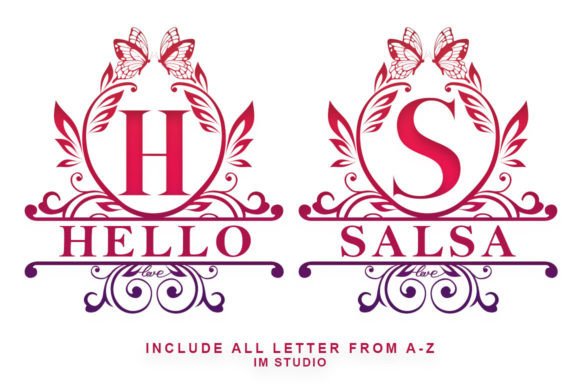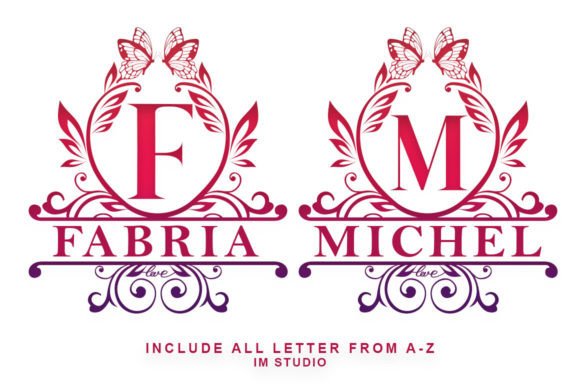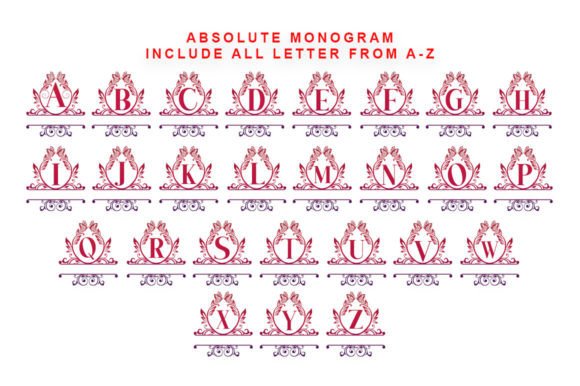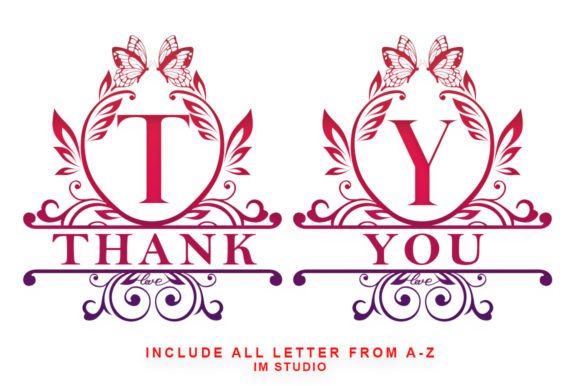
The Ultimate Guide to Absolute Monogram Font: Elevate Your Designs with Elegance
I’ll never forget the moment I stumbled upon the perfect font for a client’s wedding invitation project. I had been searching for what felt like an eternity, trying out font after font, but nothing seemed quite right. That was until I discovered Absolute Monogram Font. Its charming, decorative style instantly captured my heart, and I knew I had found the one. In this article, I’ll share my love for this beautiful font, its features, and how to make the most of it in your designs.
An Honest Review of Absolute Monogram Font
So, what makes Absolute Monogram Font so special? Let’s dive into the good stuff and a few quirks I’ve encountered.
- ✨ Authentic feel: The font has a unique, hand-crafted look that adds a touch of elegance to any design.
- ✅ Versatility: Perfect for invitations, stationery, social media posts, and greeting cards.
- 💫 OpenType features: Offers a range of glyphs and stylistic alternates to enhance your designs.
- 🌈 Beautiful monograms: The font shines when creating stunning monograms for initials or logos.
While Absolute Monogram Font is a gem, there are a few things to keep in mind:
- ⚠️ Limited use in body text: Due to its decorative nature, it’s best used for headings or titles rather than long blocks of text.
- 🤔 Some characters may require manual kerning: To achieve the perfect look, you might need to adjust the spacing between certain characters.
The Story Behind Absolute Monogram Font
The story behind Absolute Monogram Font is one of passion and dedication. While the actual designer is unknown, it’s clear that they poured their heart and soul into creating a font that would bring joy and elegance to designers and crafters alike. The font’s authentic feel and versatility have made it a favorite among creatives, and its OpenType features have opened up a world of possibilities for customization and creativity.
Q: What type of designs is Absolute Monogram Font best suited for?
A: Absolute Monogram Font is perfect for creating gorgeous invitations, beautiful stationery art, eye-catching social media posts, and cute greeting cards.
Q: Does Absolute Monogram Font support OpenType features?
A: Yes, Absolute Monogram Font offers a range of OpenType features, including glyphs and stylistic alternates, to enhance your designs.